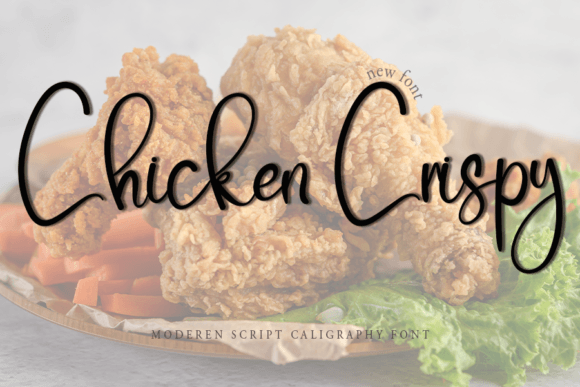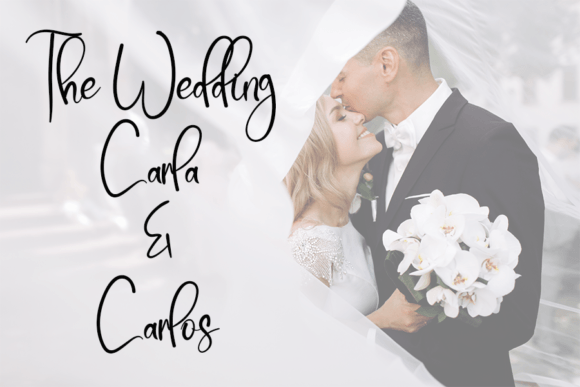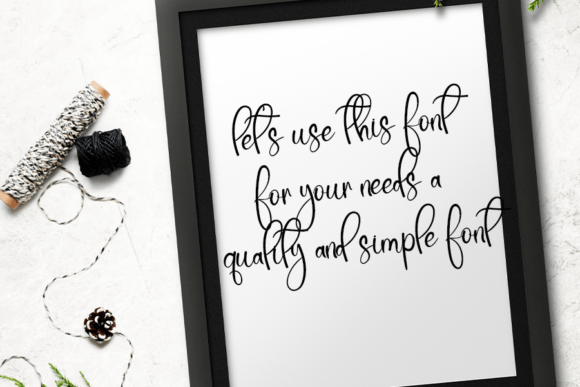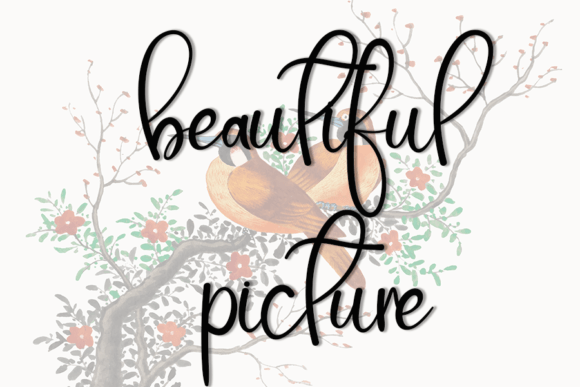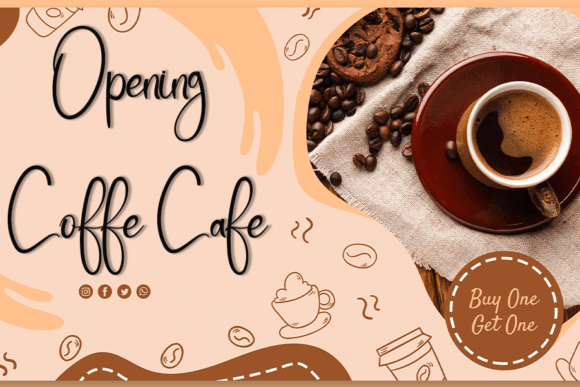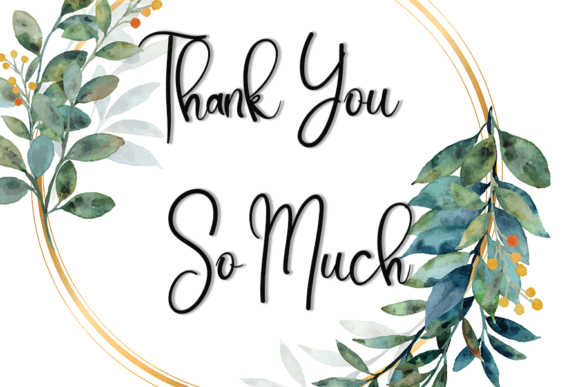
Chicken Crispy Font
About Chicken Crispy Font
Chicken CrispyFont is a neat and elegant handwritten script that blends timeless beauty with modern charm. With smooth strokes and graceful curves, this typeface adds sophistication to both personal and professional projects. Because of its versatile style, Chicken Crispy Font is perfect for invitations, greeting cards, logos, posters, branding, and packaging.
A Handwritten Typeface with Timeless Elegance
Handwritten fonts naturally bring authenticity to creative work, and Chicken Crispy Font enhances this with its polished and stylish character. Its balanced rhythm ensures readability, while its elegant details add uniqueness. Moreover, its classic form adapts seamlessly to both modern and traditional layouts. As a result, this typeface is a dependable choice for designers who want charm with refinement.
For personal stationery and event designs, Chicken Crispy Font is an excellent option. For example, it can transform a wedding invitation into a keepsake full of elegance. In addition, it works beautifully for thank-you notes, seasonal greetings, and birthday cards. Because of its graceful strokes, every project feels heartfelt, stylish, and memorable.
A Script Typeface for Logos and Branding
Brands and creatives looking to showcase sophistication can rely on Chicken CrispyFont. It adds personality and distinction to logos, product labels, and packaging. Furthermore, on social media, it makes posts, stories, and promotional designs stand out with originality. When paired with clean sans serif fonts, Chicken Crispy Font creates balance between professionalism and creativity.
Another strength of Chicken Crispy Font is its adaptability across platforms. In print, it enhances brochures, posters, magazines, and merchandise. Digitally, it elevates websites, blogs, and presentations with an elegant handwritten touch. Since it maintains clarity at both small and large sizes, this script is reliable for diverse creative uses.